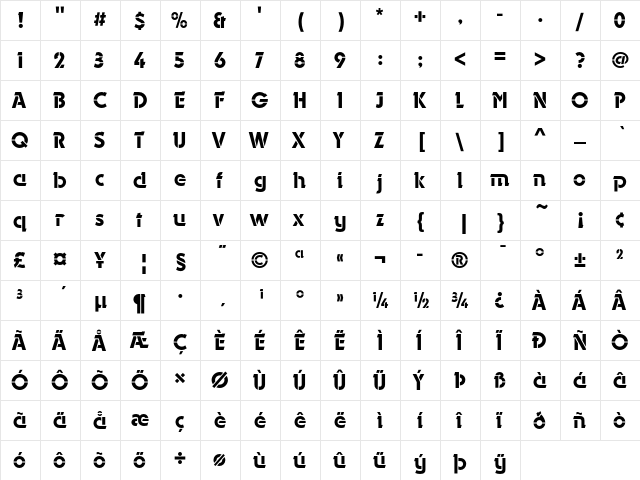
Dynamo D OT Stencil Alternative Medium
Design Context for Dynamo D OT Typeface
Dynamo D OT borrows the utilitarian aesthetic of stencil lettering, with its characteristic cutaways and no-frills construction lending an industrial edge.
A strong choice for packaging that needs edge, warehouse aesthetics, and rough-and-ready visual identities.
Pro Tip: Use Dynamo D OT at large sizes on packaging, posters, or apparel where the stencil cutaways read clearly. Avoid small sizes where those gaps become visual noise.